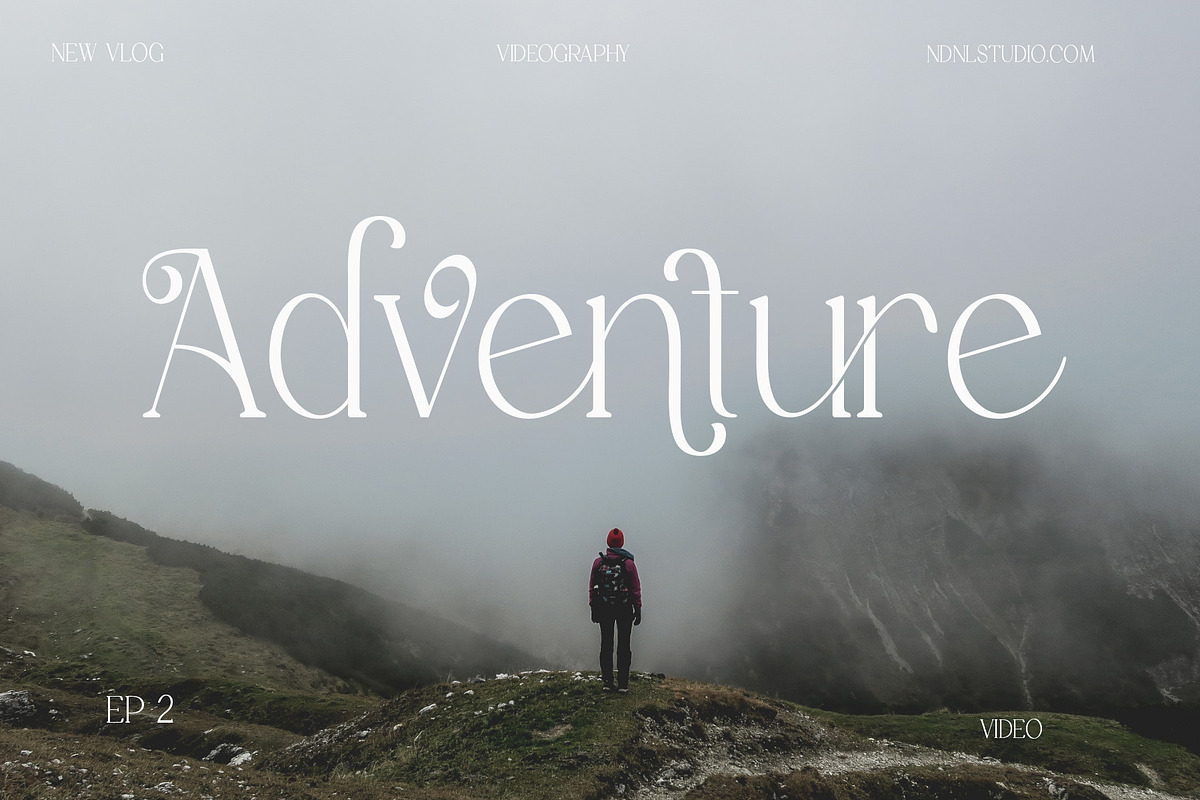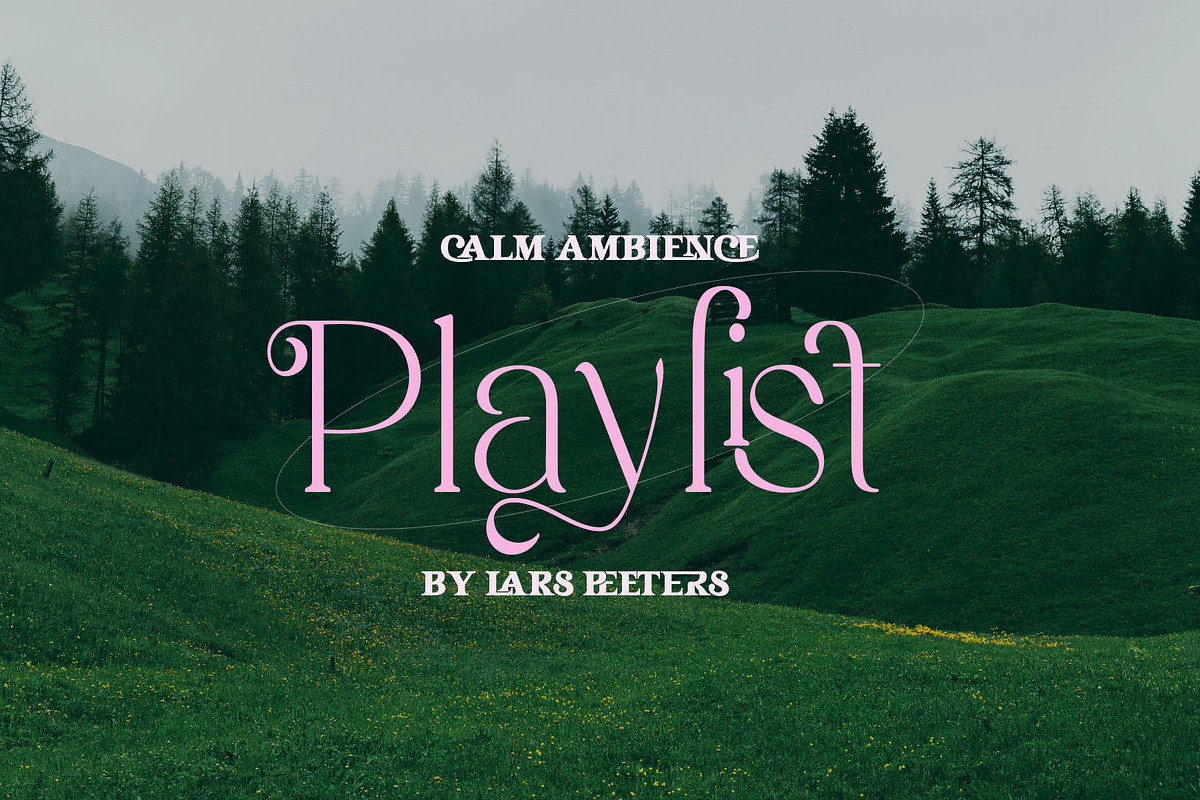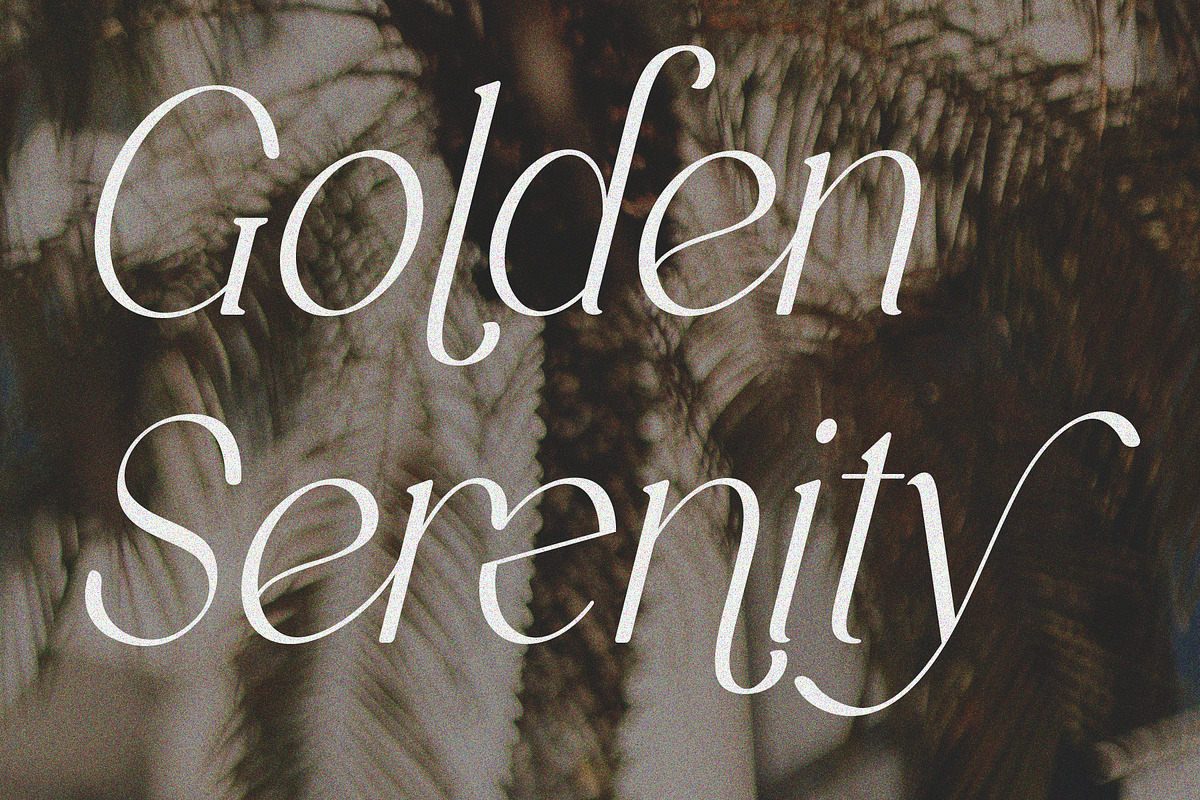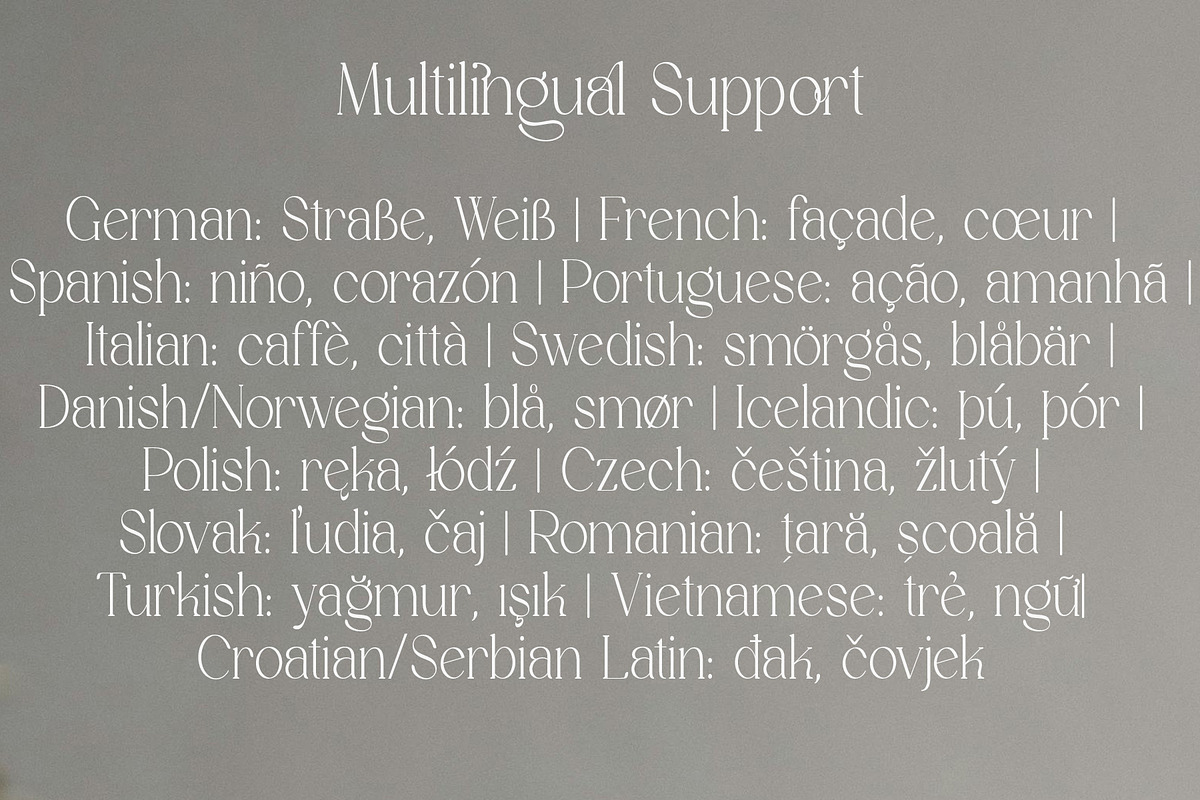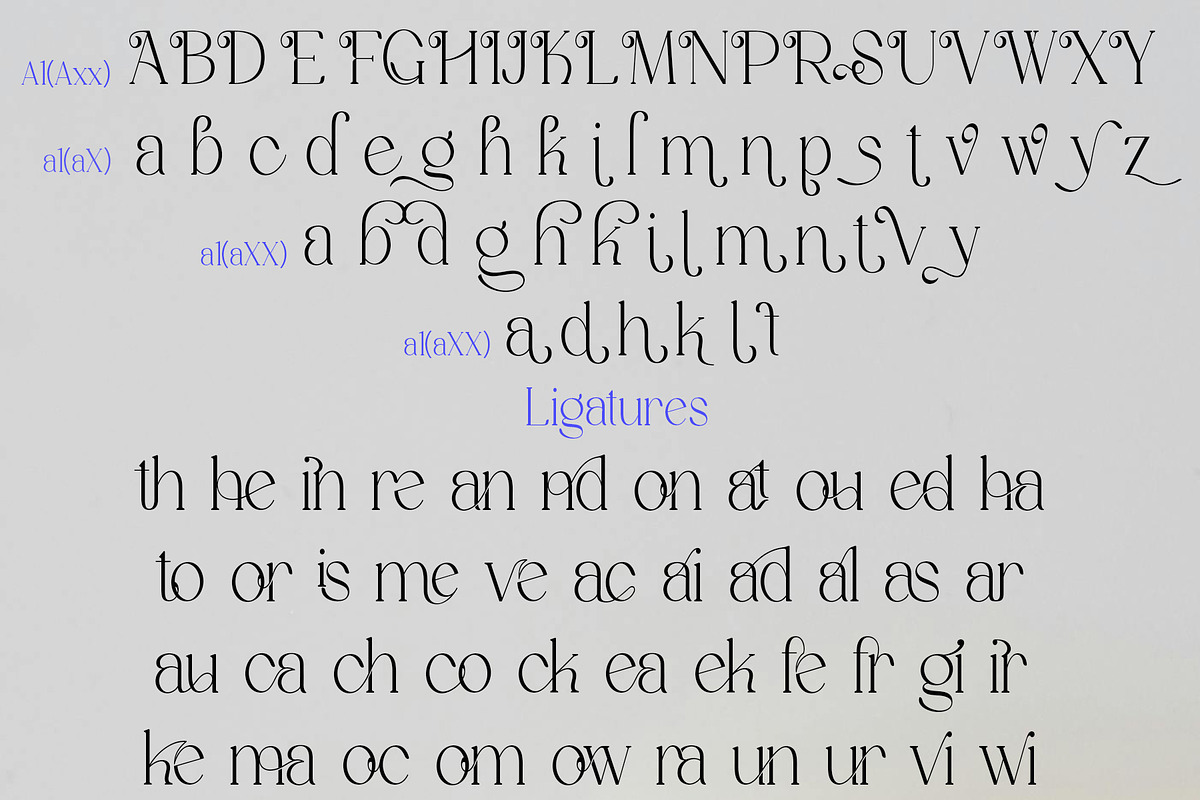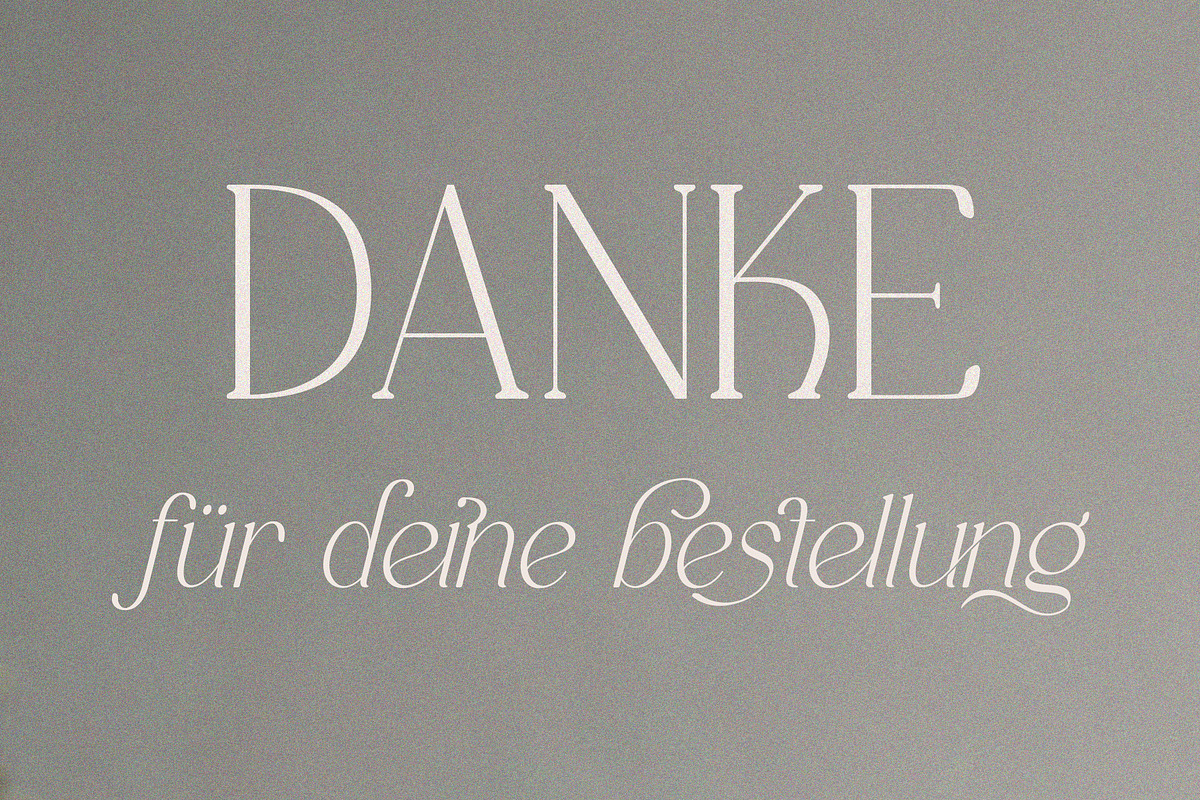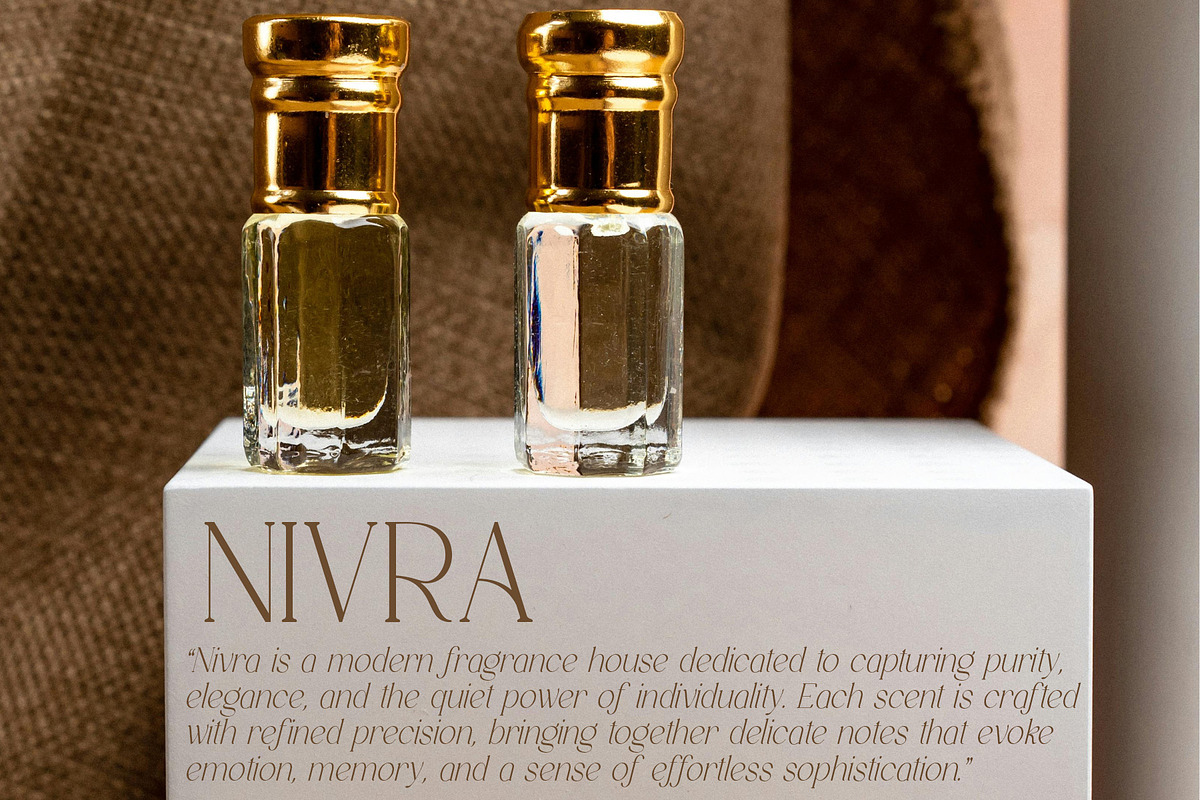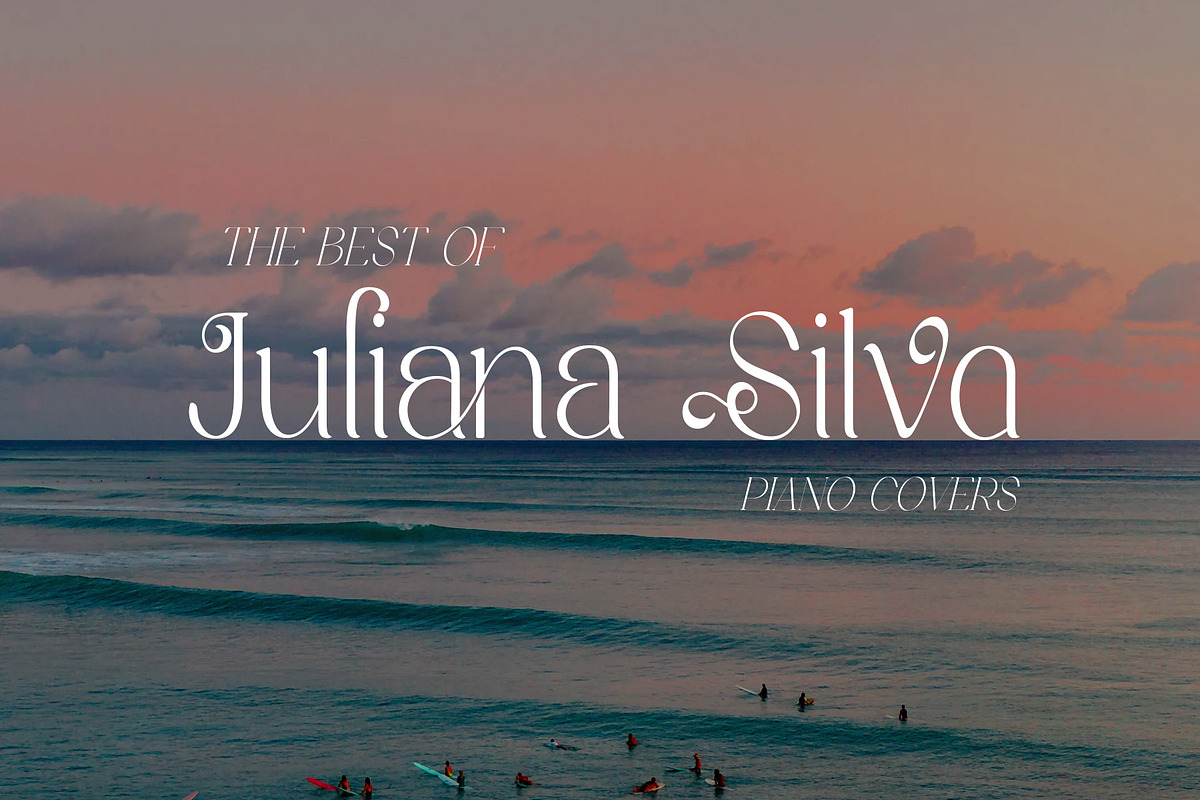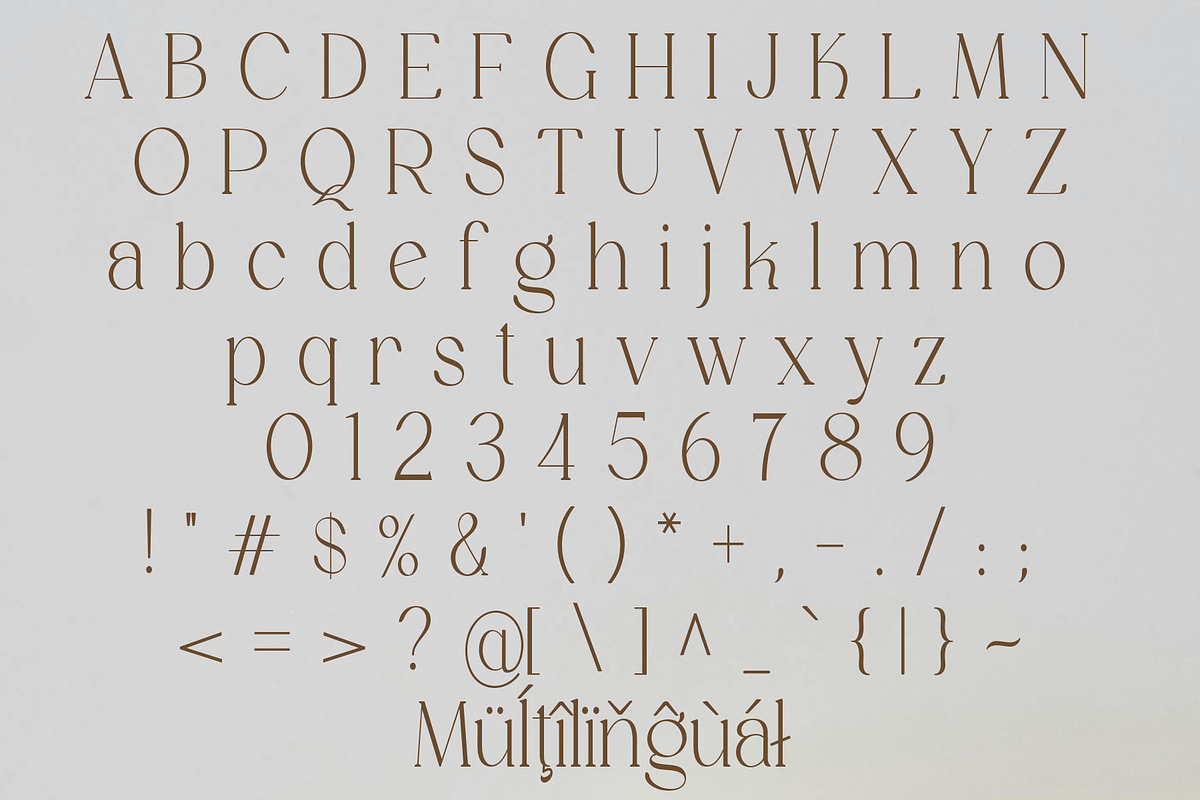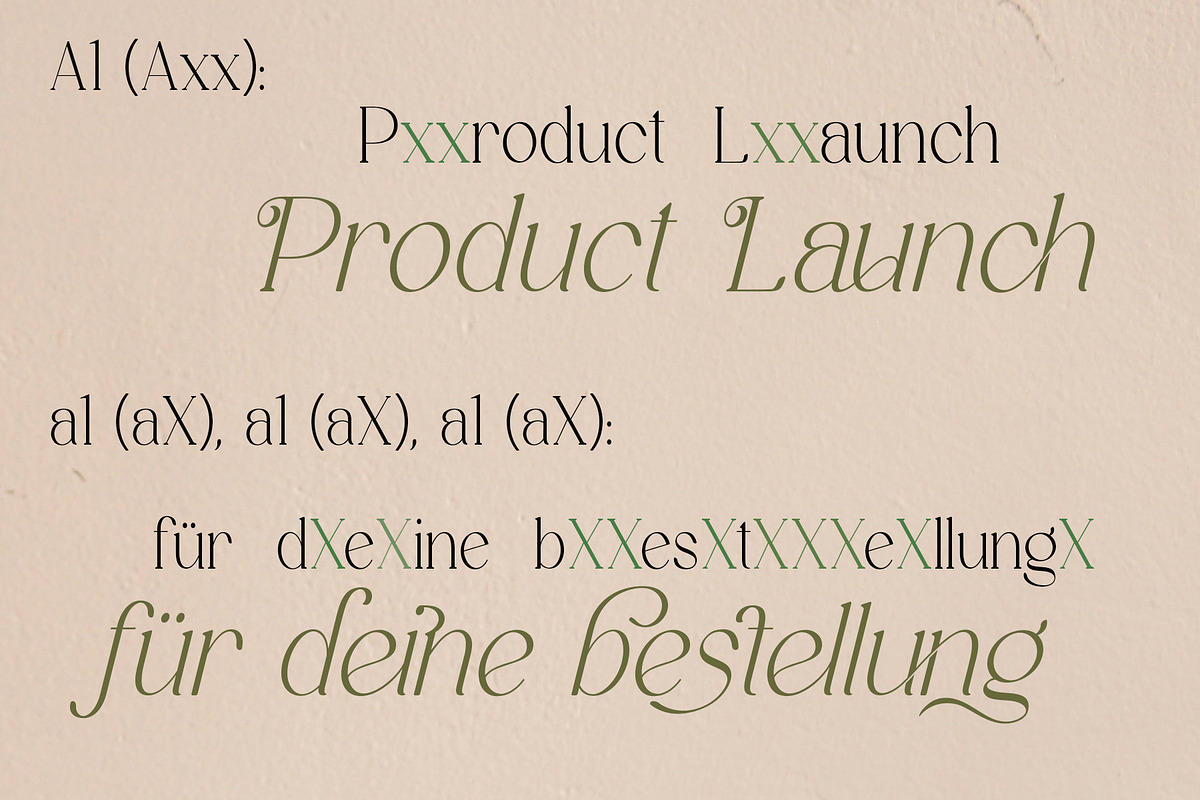
Stivra – Serif Font Family
Introducing Stivra!
Stivra is a refined serif typeface that blends minimalism with a soft, emotional touch. Its slender letterforms and gentle contrast between strokes create an elegant, warm, and subtly romantic appearance.
Featuring multiple styles including Regular, Light, Thin, and Italic, Stivra offers great versatility for various design needs. It is ideal for high-end branding, fashion, beauty, editorial layouts, headlines, logos, packaging, and projects that require a delicate yet professional typographic voice.
If the software you are using does not fully support OpenType features (such as Stylistic Alternates), you can still access the decorative characters of the font using the following method:
Examples:
- Axx → Decorative A (if available)
- aX → Decorative a (if available)
And also:
- AxX → Decorative A2 (if available)
- aXX → Decorative a2 (if available)
- aXXX → Decorative a3 (if available)
To separate ligatures: Insert the shortcut xXx between two characters.
- ab → axXxb → a b